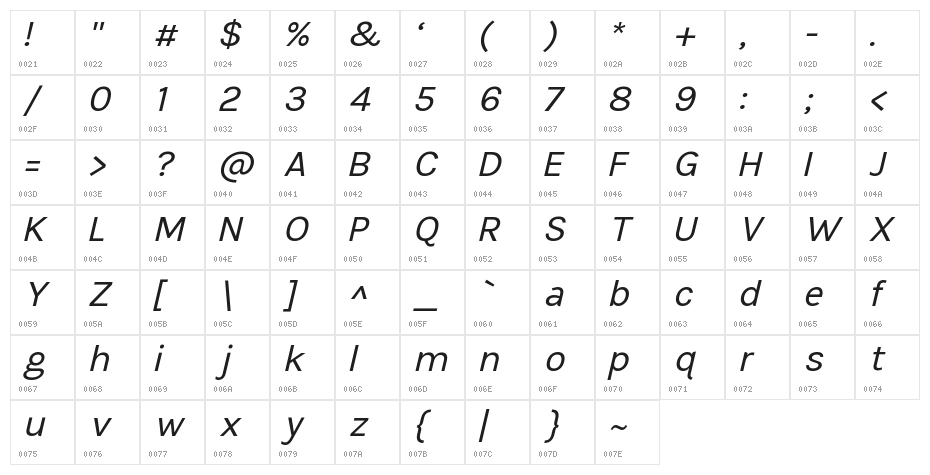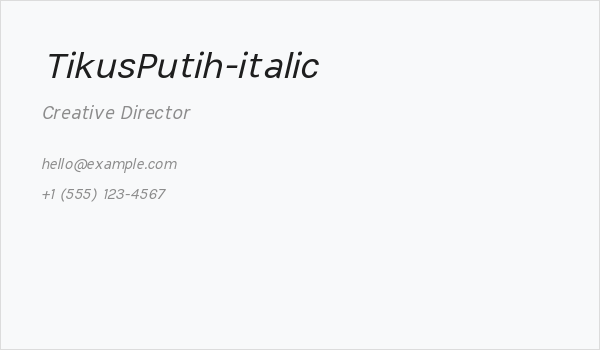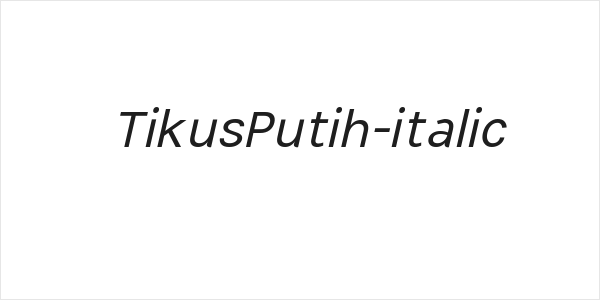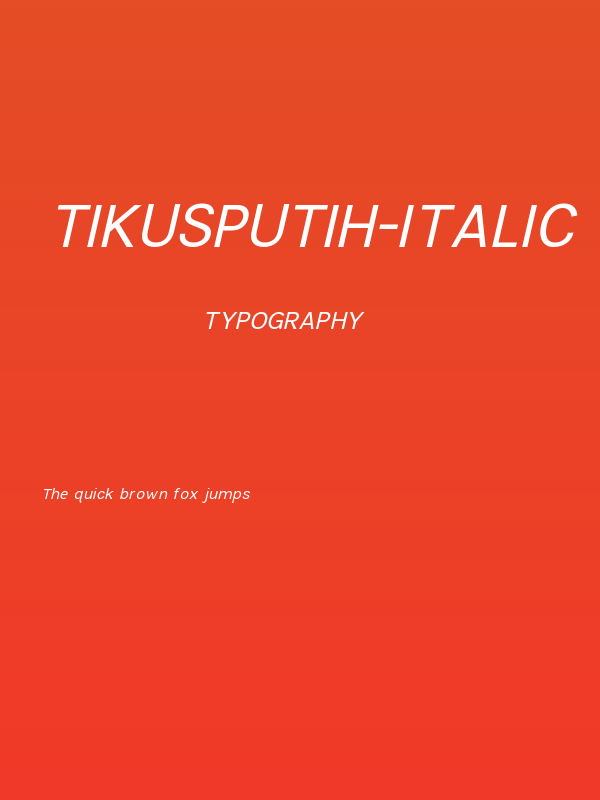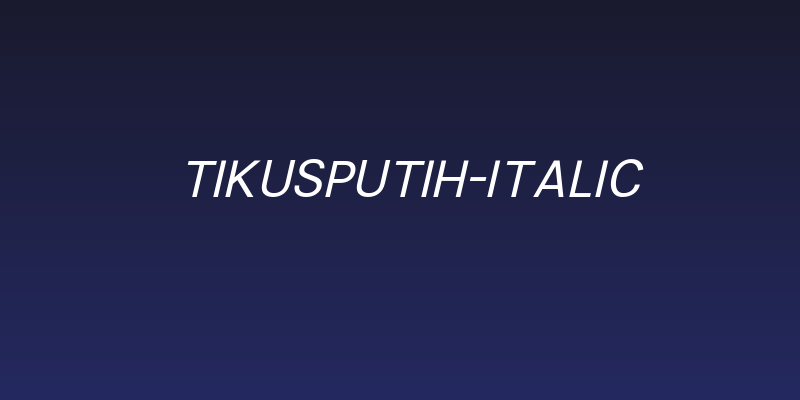
TikusPutih-italic Font
TikusPutih-italic Description
This font features a sleek and modern italic style, characterized by its smooth curves and clean lines. The letters are slightly slanted, giving a dynamic and elegant appearance. The uppercase letters are bold and prominent, while the lowercase letters maintain a consistent flow, enhancing readability. The numerals are well-proportioned, and the special characters are distinct and clear. This font exudes a contemporary feel, making it suitable for various design applications.
| Proposed Projects | Ideal for branding, editorial design, and digital interfaces where a modern and elegant touch is desired. |